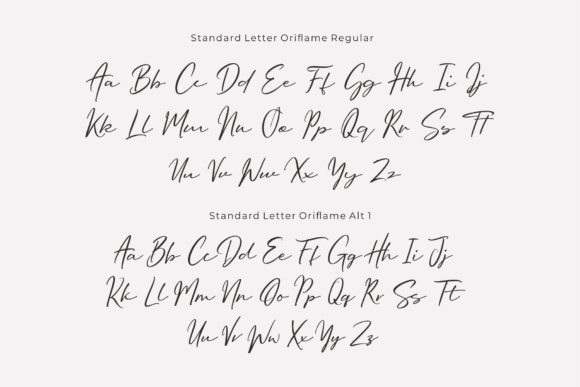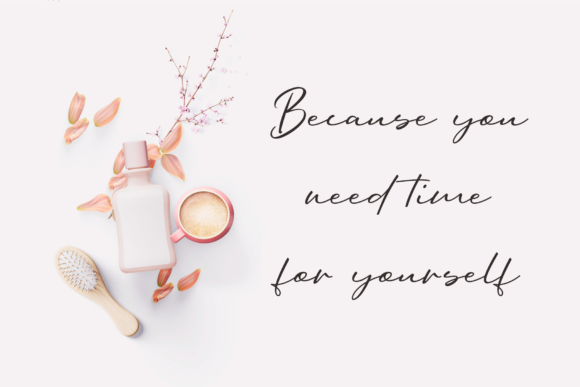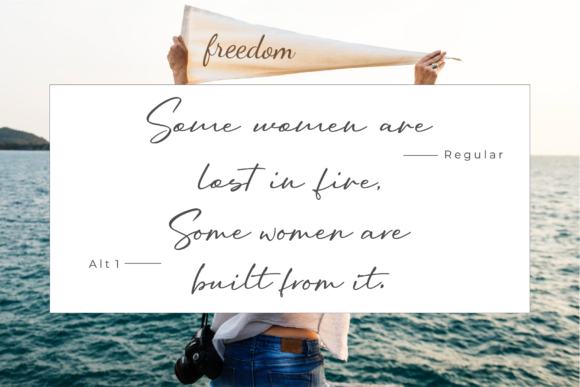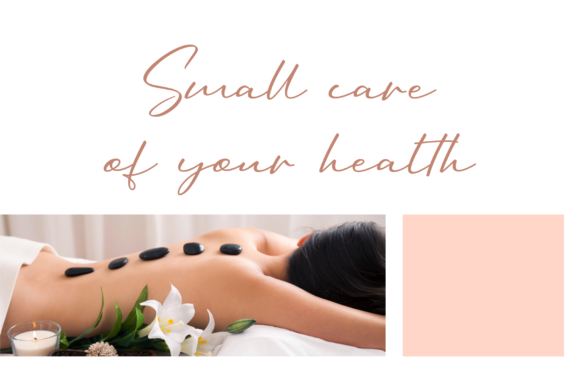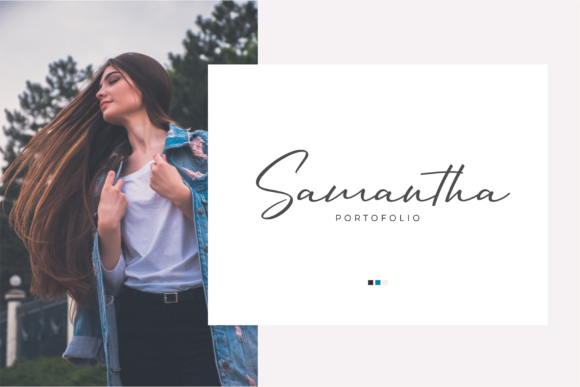
About Oriflame Script Font
The Oriflame is an elegant handwritten font with confidence and courage. It has a very beautiful movement, is dynamic and certainly very elegant.
Perfect for your logos, printed quotes, badges, insignia, packaging, headlines, posters, t-shirts / apparel, greeting cards, and wedding invitations.